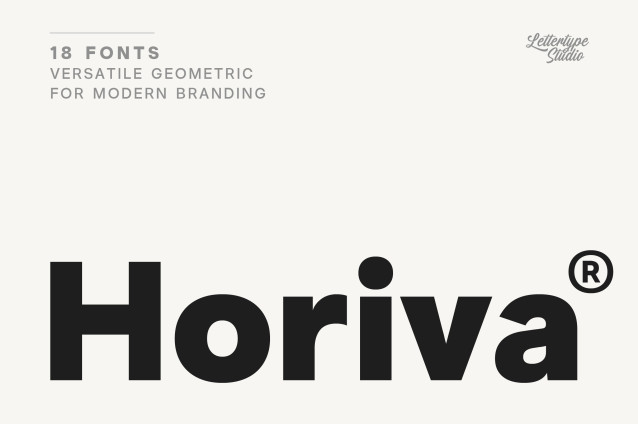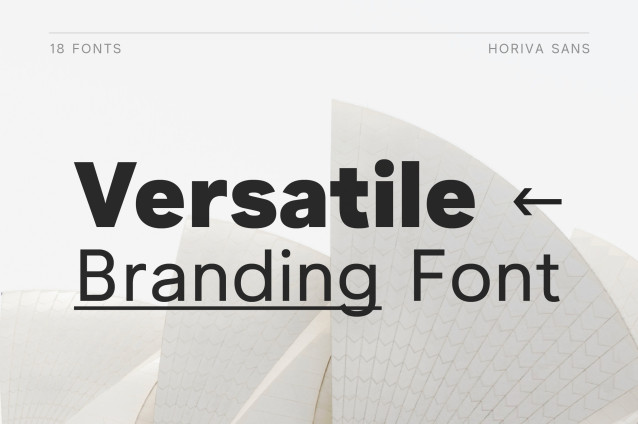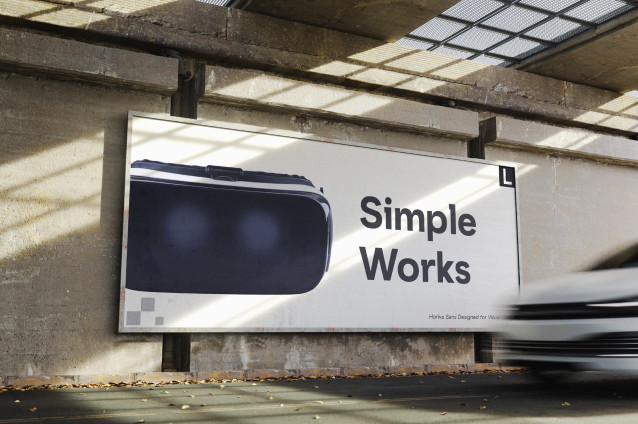
Horiva Sans Font
Horiva Sans is a contemporary geometric sans serif family designed to provide clarity, versatility, and refined visual balance for modern typography. Built with carefully considered optical corrections, consistent spacing, and balanced proportions, every character has been developed to maintain excellent readability while preserving a clean geometric aesthetic. Whether used for branding, editorial layouts, interface design, corporate communication, packaging, or presentation materials, Horiva delivers a timeless foundation for professional design projects.
The family includes 18 styles ranging from Thin to Black with matching italics, allowing designers to create flexible typographic hierarchies across a wide range of applications. Horiva Sans contains 560 glyphs with support for more than 270 Latin-based languages, along with superior and inferior numerals, circled and negative circled numbers, additional currency symbols, and extensive stylistic alternates for both uppercase and lowercase characters. These features provide greater creative flexibility while maintaining visual consistency throughout the entire family.
Every glyph has been refined through comprehensive spacing, kerning, screen evaluation, and print testing to ensure dependable performance in real-world environments. From elegant editorial layouts and sophisticated brand identities to user interfaces, websites, packaging, and corporate documents, Horiva Sans combines geometric precision with practical usability, making it a reliable sans serif family designed for contemporary creative professionals.